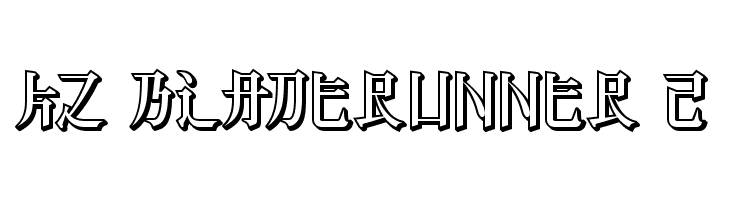
A bold, geometric font with sharp edges and a modern style.
A modern gothic font with sharp, angular lines and geometric shapes.
A bold, high-contrast font with sharp, angular strokes and a modern flair.